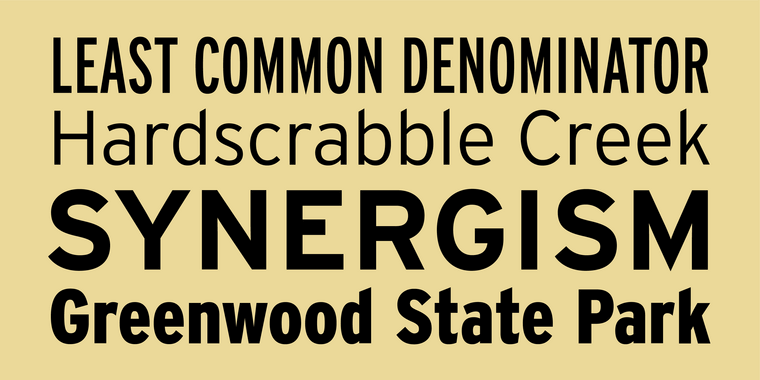
Interstate is a font made by Tobias Frere-Jones and released in 1993. The look of Interstate was inspired by the letters on US highway signs. It is a good font for signs because you can clearly read it from far away and each letter looks different.